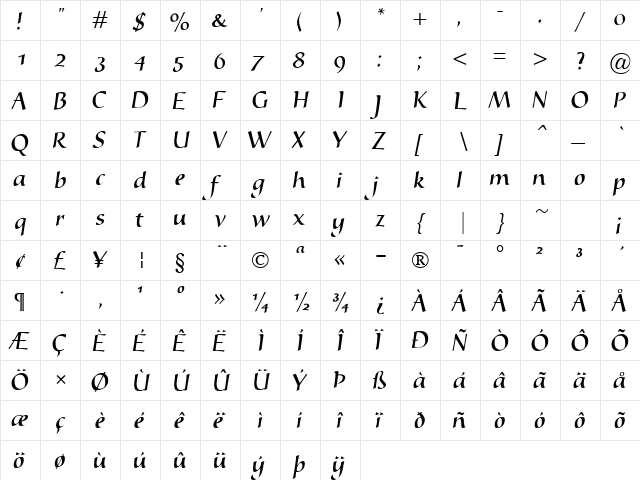
Nyfors Regular
Design Context for Nyfors Typeface
Nyfors takes a measured approach to typography — its balanced proportions and neutral character make it a reliable workhorse for both digital and print work.
Pro Tip: Use Nyfors in both headline and body roles to test its range before committing to a single application.